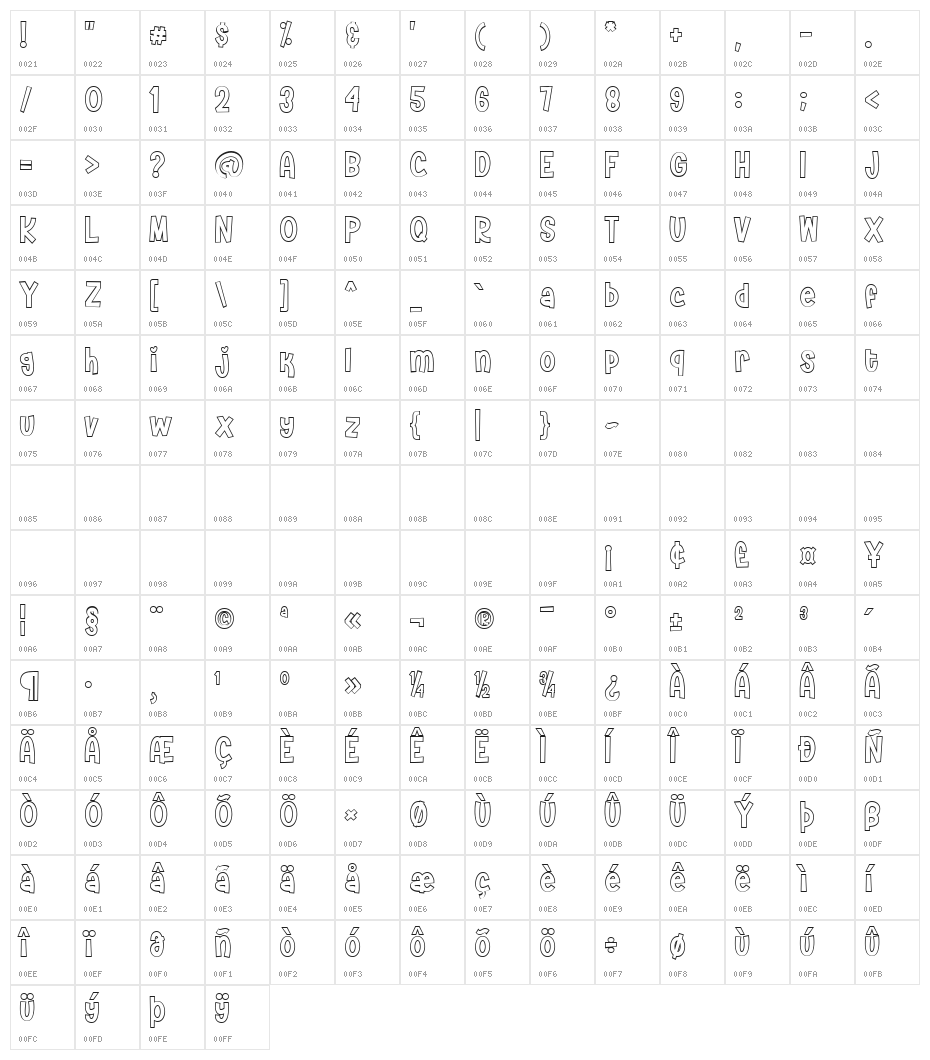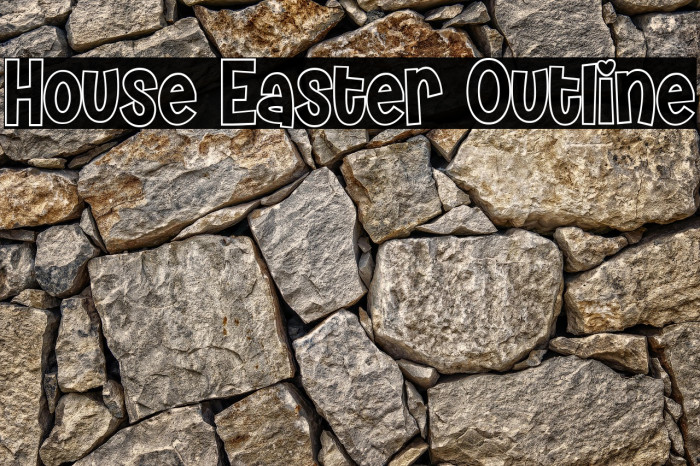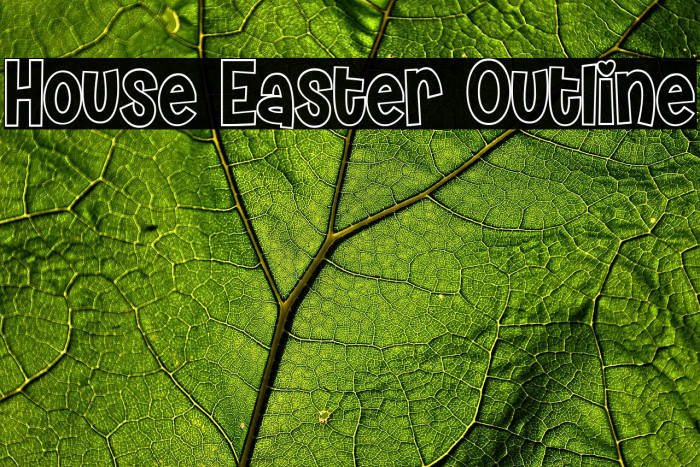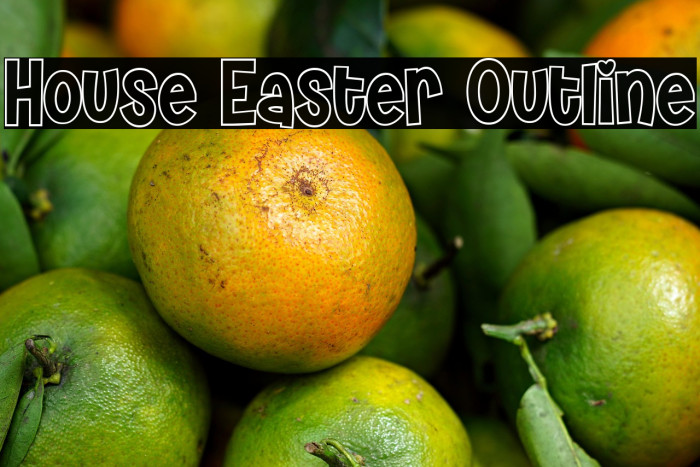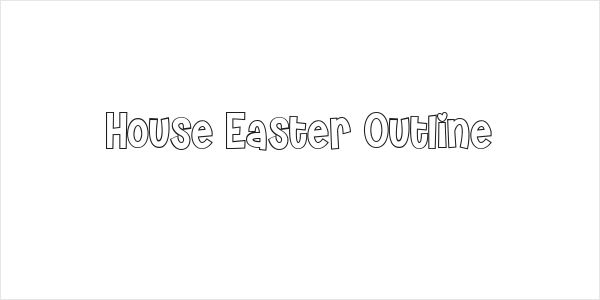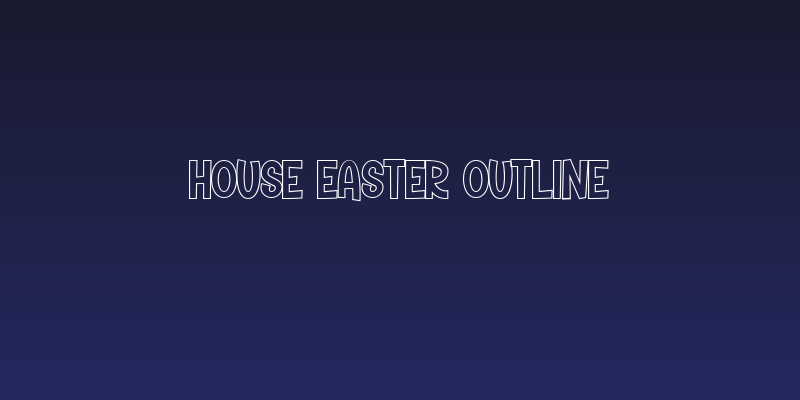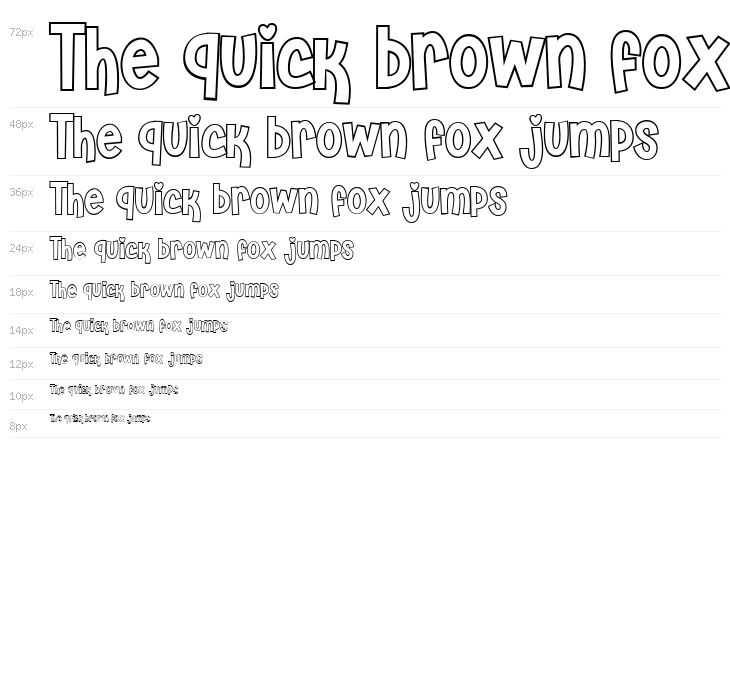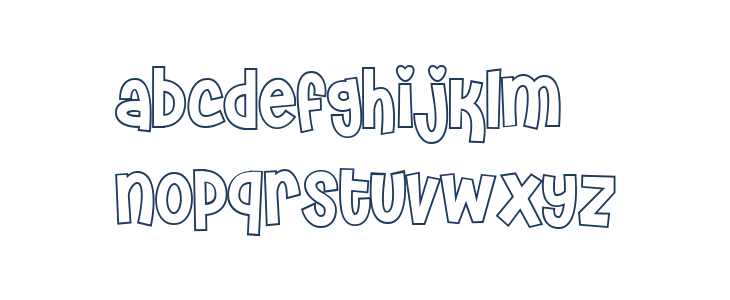
House Easter Outline Font
House Easter Outline Description
This playful and whimsical font features bold, outlined characters with a cartoonish style. The uppercase and lowercase letters are rounded and slightly irregular, giving them a hand-drawn appearance. The font includes numbers and a variety of special characters, maintaining its fun and informal aesthetic throughout. The letters have a consistent stroke width, which adds to the bold and eye-catching nature of the font. This style is perfect for projects that require a lighthearted and cheerful touch.
Overall StylePlayful, Whimsical
Proposed ProjectsIdeal for children's books, greeting cards, playful branding, and party invitations.